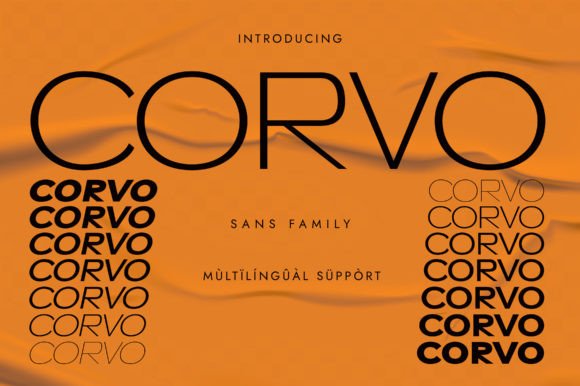
Journey into the realm of minimalist elegance with Corvo Font, a sans serif typeface that captivates with its understated beauty and functional charm. Designed by the visionaries at Minimalistartstudio, Corvo embodies the essence of simplicity, offering a clean and legible aesthetic that complements any design project.
With seven distinct font weights and their corresponding italics, Corvo provides unmatched versatility, effortlessly adapting to a multitude of design needs. Whether you're crafting sleek app interfaces, designing captivating books, creating eye-catching packaging, or composing elegant magazines, Corvo emerges as the perfect partner, seamlessly enhancing your creative vision.
Experience the transformative power of Corvo as it elevates your designs, lending a touch of sophistication and refinement. Its minimalist aesthetic seamlessly blends into any context, allowing your content to shine through with unparalleled clarity and impact. Each letterform is meticulously crafted to maximize readability, ensuring your message is communicated with precision and clarity.
Unleash your creativity and explore the limitless possibilities of Corvo. Its versatility extends from the digital realm to the tangible world, making it an ideal choice for both screen and print applications. Whether you're designing a user-friendly website, a visually captivating brochure, or a stunning poster, Corvo effortlessly adapts, enhancing your designs with its understated elegance.
Step into a world of minimalist beauty and functional excellence with Corvo Font. Add it to your font library and witness how it effortlessly becomes your go-to choice, transforming your design projects into captivating masterpieces. Embrace the power of simplicity and clarity, and let Corvo elevate your designs to new heights of sophistication.